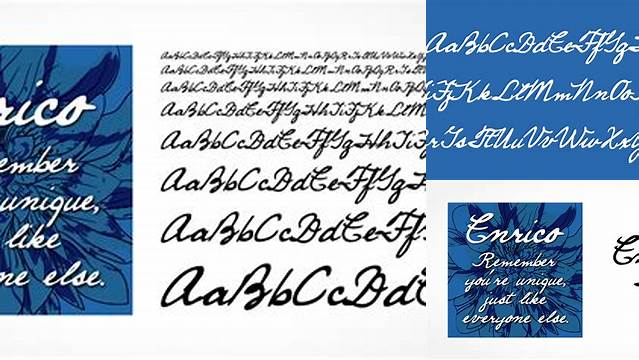
Enrico Handwriting Font: Free Download & Design Guide
Enrico Handwriting Font Free Download: Your Ultimate Guide
Are you looking for a stylish and authentic handwritten font? Look no further! This guide is your ultimate resource for everything related to the Enrico Handwriting Font Free Download. We'll dive deep into its features, where to find it, how to use it, and explore similar font options. So, buckle up, guys, and get ready to enhance your projects with this beautiful typeface.
The Unique Features of Enrico Handwriting Font: What Makes It Special?
Alright, let's get to the fun part β the Enrico Handwriting Font itself! What makes this font so special, and why is it so popular? Well, guys, the Enrico font is designed to mimic natural handwriting, giving your designs a personal and authentic touch. One of its standout features is its fluidity. The letters flow together seamlessly, creating a sense of organic movement that's hard to replicate with other fonts. It has a slightly irregular appearance, just like real handwriting, which adds to its charm and character. This imperfection is what makes it so appealing, giving your designs a human touch. It's designed with legibility in mind. Despite its handwritten style, the font remains easy to read, making it suitable for a wide range of applications. The Enrico font often includes a variety of glyphs, such as ligatures and alternate characters. Ligatures are special characters that combine two or more letters into a single glyph, which improves the font's look. These features enhance the overall appearance and make your text more visually appealing. Itβs also versatile. It works well in various contexts, including invitations, greeting cards, social media posts, and even branding materials. The Enrico font can add a touch of elegance and sophistication to any project. The font's design is often inspired by classic calligraphy, giving it a timeless feel. The elegant strokes and curves make the font incredibly stylish. It's also relatively easy to use. The font is designed to be user-friendly. You can easily implement it in your favorite design software. With a bit of creativity, you can transform your ordinary designs into extraordinary creations using this handwriting font.
Enrico Handwriting Font in Action: Practical Applications and Examples
Let's explore how you can put the Enrico Handwriting Font to work! Guys, this font is versatile and can be used in many creative projects. Here's a look at some practical applications and examples. The Enrico font excels at creating invitations and greeting cards. Its handwritten style adds a personal touch, making your cards feel warm and inviting. You can use it for wedding invitations, birthday cards, or any event where you want to convey a sense of elegance and charm. For social media graphics, the Enrico font can make your posts stand out. Use it for captions, quotes, or announcements. It adds a unique look that grabs attention. In branding and logo design, the font can be a great choice, especially for businesses that want to convey a friendly or approachable image. Imagine a logo for a handcrafted product or a small business that wants to highlight its personal touch. In web design, the font can be used in headings, titles, or even short paragraphs. However, be careful with using it for large blocks of text, as it might not be the most readable option. For print materials, the Enrico font shines. Whether creating posters, flyers, or brochures, it adds a touch of personality. Consider using it for event promotions, product descriptions, or even menus. In digital art and graphic design, the font can be used to create stunning artwork. Use it in combination with other elements to create unique compositions. In educational materials, the Enrico font can be a fun way to create worksheets, presentations, or educational resources. The handwritten style can make learning more engaging for students. With a bit of creativity and experimentation, the possibilities are endless. Consider using it in combination with other design elements, such as images, colors, and textures, to enhance its appeal. With a little imagination, you can use the Enrico font to add a personal touch to your projects.
Customizing Your Enrico Handwriting Font: Tips and Tricks
So, you've downloaded the Enrico Handwriting Font Free Download β now what? Let's talk about customizing it to fit your needs perfectly. Guys, while the Enrico font is beautiful as is, a little customization can take your designs to the next level. First, start with the basics: adjusting the font size, color, and spacing. The size depends on where you use it. You'll want to experiment with different sizes to find the perfect balance for your project. The color is essential too. Choose a color that complements your overall design. Also, consider adjusting the spacing between letters (kerning) and lines (leading). This helps improve readability. Next, explore text effects in your design software. Try adding a drop shadow, outline, or even a slight blur to make the text pop. You can also experiment with different text alignment options, such as left, right, center, or justified. Use these effects to add depth and visual interest. For a unique look, mix and match the Enrico font with other fonts. Pair it with a clean, sans-serif font for headings and a more traditional serif font for body text. This creates contrast and visual hierarchy. You can also customize it using special characters and ligatures that are available within the font itself. These characters add to the font's appeal. Use the advanced features of your design software to make your font pop. In some software, you can adjust the slant of the font. Experiment with different angles to give your text a unique look. Finally, always preview your work to ensure your customizations are effective. Try testing it on different devices and in different contexts to ensure it looks great everywhere. With a little practice, you'll become a master of customization, able to create beautiful and unique designs with the Enrico font.